When you create a carefree, beachy vibe for your designs, nothing captures that feeling better than a good surf font. Surf fonts are ideal for surfing-related logos and beach-themed posters. They are an essential tool for designers who want to bring the fun, freedom, and energy of the beach into their work.
Whether designing a logo for a surf shop or creating packaging for a summer product, using a surf font will make your project stand out. It will give your design an instantly recognizable surfer style vibe.
Why Choose Surf Fonts?
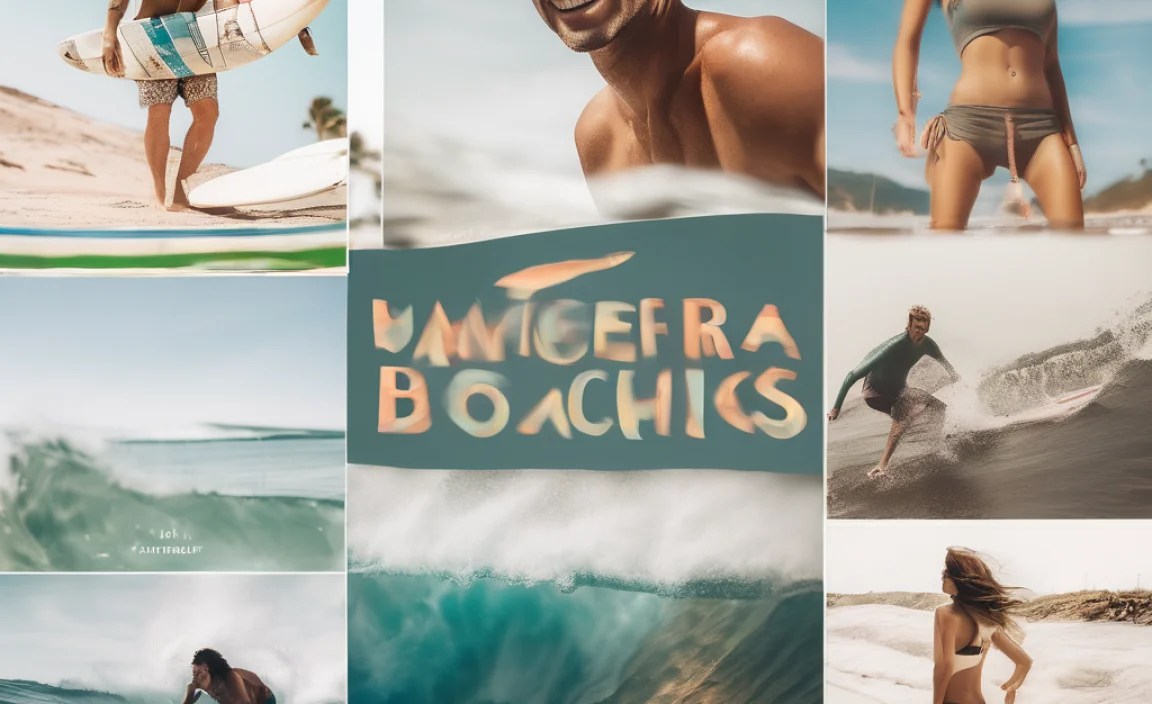
Surf fonts have become a brand staple, especially for businesses related to beach culture, surfing, and outdoor activities. These fonts are designed to evoke a sense of nostalgia and fun, often featuring bold, dynamic characters that remind us of surfers’ laid-back, adventurous lifestyle. From retro fonts that call back to the 70s to modern script fonts with a stylish twist, surf fonts are incredibly versatile.
These fonts are also highly useful for various design projects. Whether you’re working on packaging, posters, greeting cards, or website banners, a good surf font can make all the difference. They are often used in advertising to catch the eye of customers looking for fun, adventure, and style. If you’re crafting a headline or designing a book cover, surf fonts can be the perfect choice to grab attention and set the tone.
Types of Surf Fonts to Consider
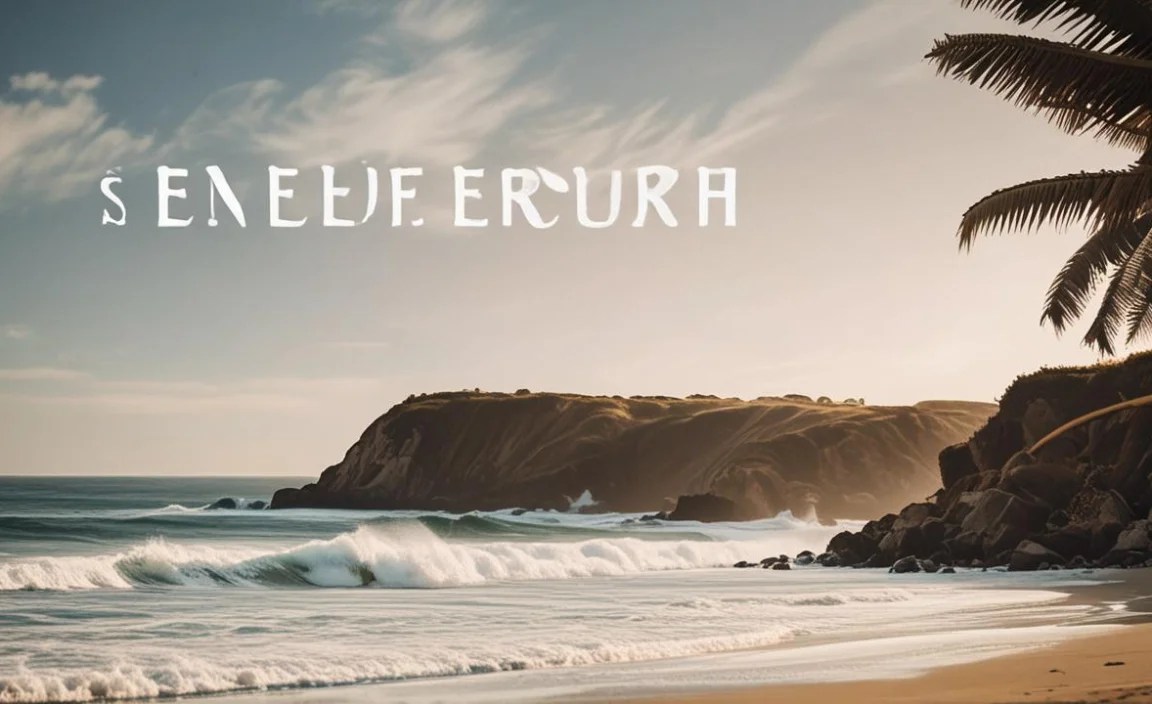
There are many different styles of surf fonts to suit different design needs. Let’s explore some popular categories:
Vintage Surf Fonts: For a classic, nostalgic beachy feel, vintage surf fonts are the go-to choice. These fonts often feature bold lettering and retro curves that are perfect for posters and packaging that highlight the carefree nature of the past.
Script and Calligraphy Fonts: Many surf fonts incorporate script or calligraphy elements, which add elegance and personality to your design. These fonts work great for personalized beach-themed greeting cards, logos, or labels.
Modern Surf Fonts: If you’re looking for something fresh and stylish, modern surf fonts are a fantastic choice. These fonts typically feature sleek, minimalist designs with a touch of the fun surfer style.
Western Fonts: Although not strictly related to surfing, western-style fonts often bring a rugged, adventurous edge to designs, making them great for surf shops, brands, or products that cater to an active lifestyle.
Ideal Surf Fonts for Your Design
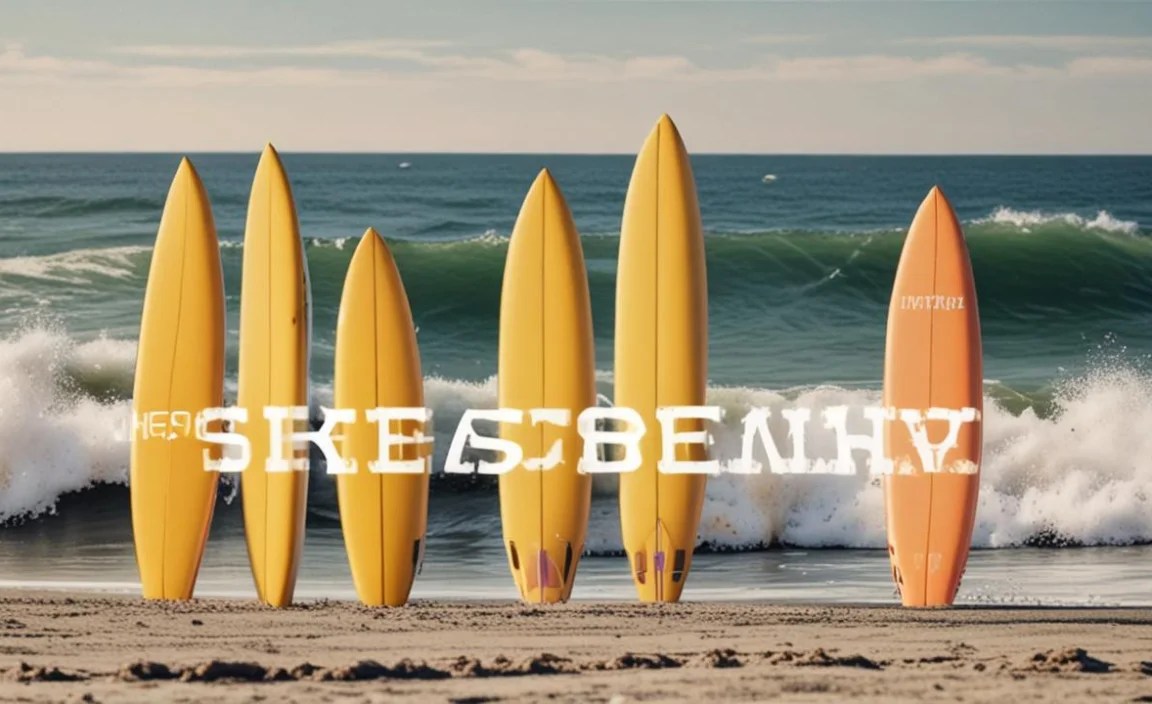
Here are some ideal surf fonts you can use to elevate your designs:
- Nashira by Craftsupplyco – A relaxed, modern surf font with a personal touch.
- Tropical Asian by Konstantine Studio – Perfect for bringing in a beachy, tropical feel.
- Pacifico by New Typography – A smooth, vintage script with a modern twist.
- Wishful Waves – A playful, retro-inspired font great for posters or banners.
- Mister Lindquist by Måns Grebäck – A clean, stylish font with a fun, beachy vibe.
- Diamond Dust by Herofonts – Bold, clean, and perfect for commercial use.
- Sailor Larry – A classic surf font with a touch of retro nostalgia.
- Aloha Sumericon by Denustudios – Brings a tropical, carefree aesthetic to any design.
- Bahamas Two by Billy Argel Fonts – Bold and distinctive, perfect for headlines and logos.
- Retromark Script is a true retro surfer vibe perfect for beach-themed projects.
- Emiral Script by Konstantine Studio – Elegant, script-style font that brings sophistication to surf-related designs.
- Water Splash by Konstantine Studio – A playful, water-inspired font with a unique style.
Where to Use Surf Fonts
Surf fonts can be used across a variety of design projects. These fonts are highly adaptable, from branding and logos to posters, banners, and magazines. They’re also great for advertisements, especially if you promote products related to the beach, surfing, or outdoor activities.
If you’re working on commercial use materials, choose a surf font that allows that usage. Whether you’re designing labels, products, or apparel, the right font will help your project stand out. Don’t forget to consider the glyphs and characters in each font to ensure they match the style and usage you need.
Finding the perfect font is essential to bringing your design to life. If you’re unsure where to start, draw inspiration from famous surf culture and the beach lifestyle. Fonts like Surfnik and Tropical Asian evoke images of the beach, the ocean, and the freedom that comes with being a surfer.
Whether you’re creating an alphabet design, email marketing campaign, or website layout, using a surf font can help convey the carefree, vibrant feeling you’re aiming for.
What Is A Surf Font?
A surf font is a style designed to capture the carefree, adventurous vibe of surfing and beach culture.
Can I Use Surf Fonts For Commercial Purposes?
Can I Use Surf Fonts For Book Covers?
Absolutely! Surf fonts work well for book covers, especially for titles related to beach culture or adventure themes.
What Type Of Surf Font Is Best For A Retro Vibe?
Vintage surf fonts with rounded edges or bold strokes are perfect for a retro aesthetic. Retromark Script and Wishful Waves are great examples.
How Do I Choose The Right Surf Font For My Design?
Consider your design style, the audience you’re targeting, and where the font will be used. Match the vibe of the font with your overall theme for maximum impact.